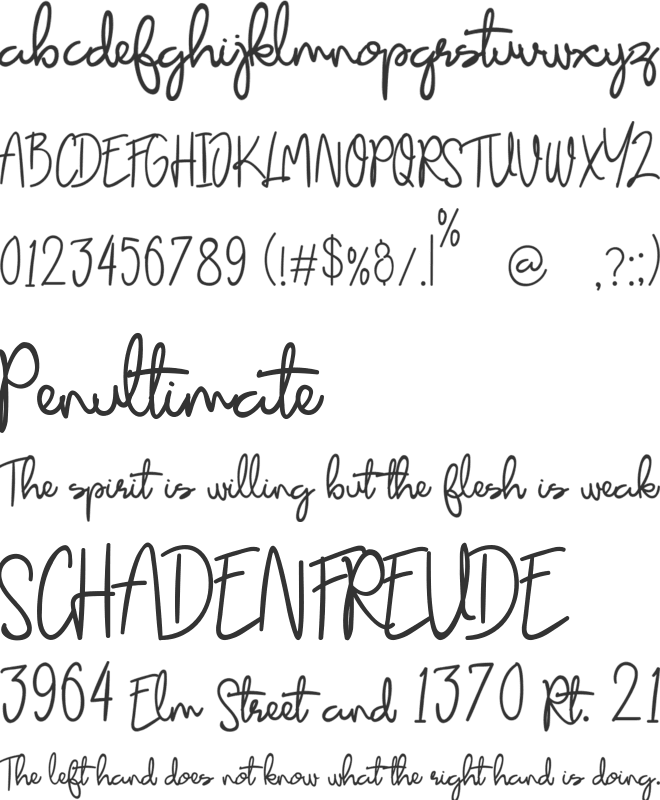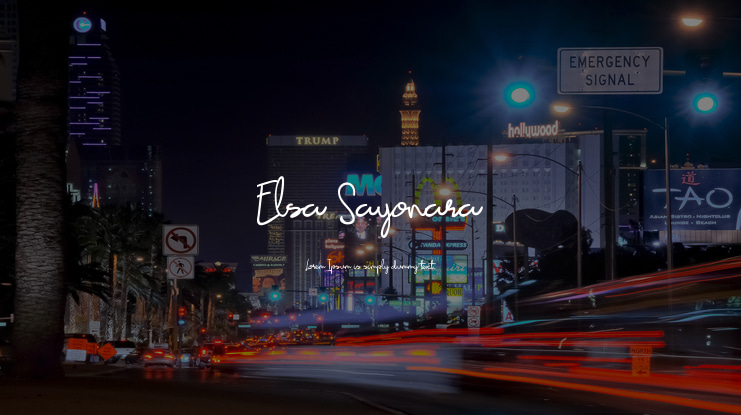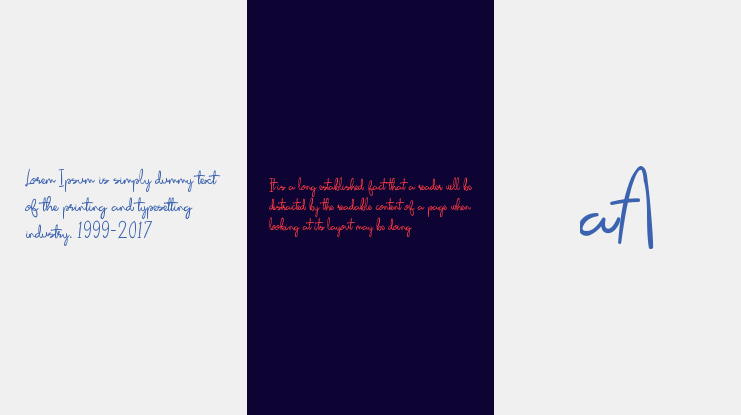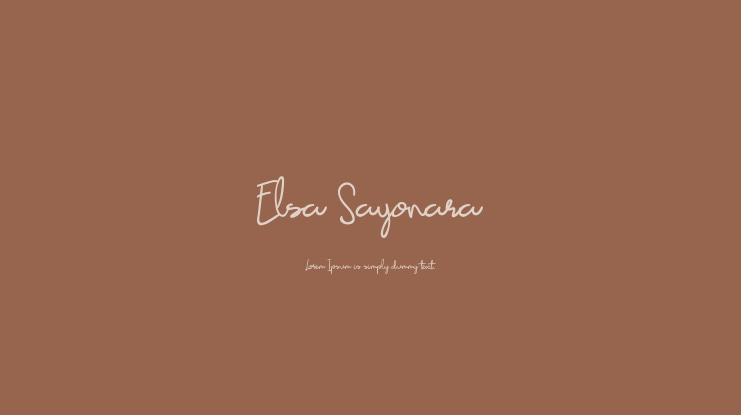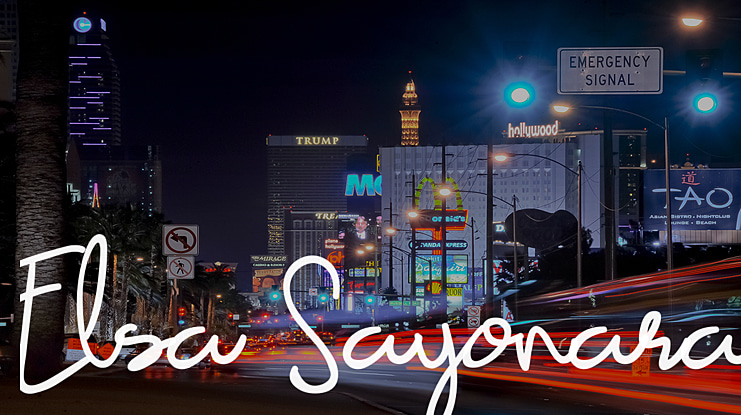
Elsa Sayonara Font
Elsa Sayonara Modern Script is an upright handwritten font, which looks like a thick pen stroke. It has a combination of high and low letters that are relatively balanced, representing calm, soft, and handwriting. Designed for your brand and products to look more luxurious, unique, and elegant, like the name of a font that represents the figure of a queen. More specifically, this font is created so you can use it for short slogans to make it more interesting and make more customers see your design products more closely.
Relevant and suitable for product branding, wedding invitations, greeting cards, posters, photography, craft products, T-shirts, logos, merchandise, social media posts, and more.
Elsa Sayonara font preview